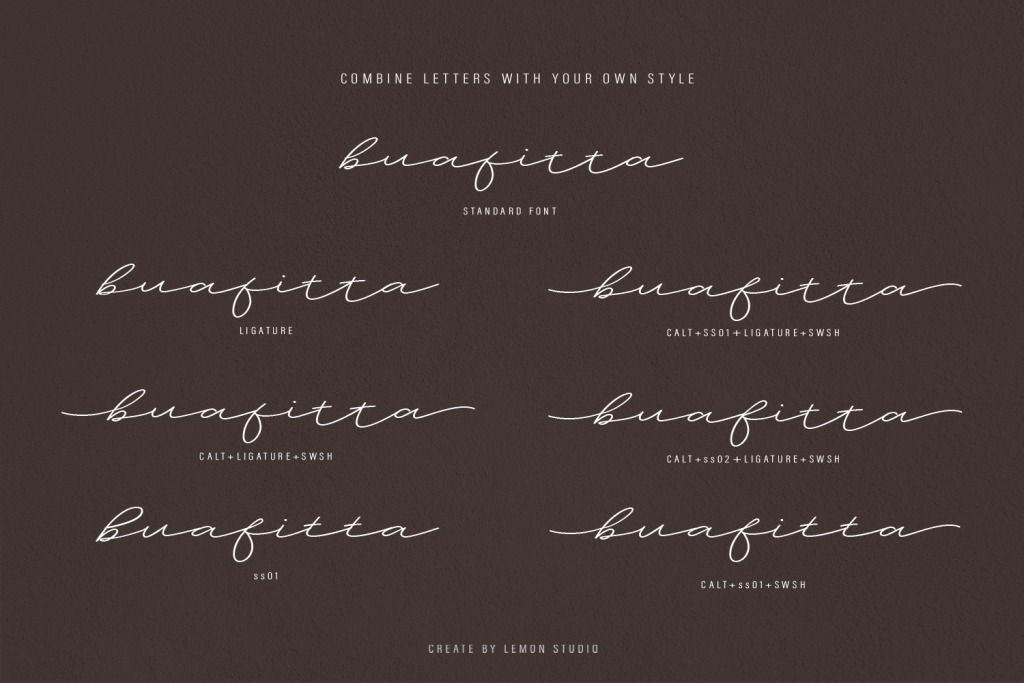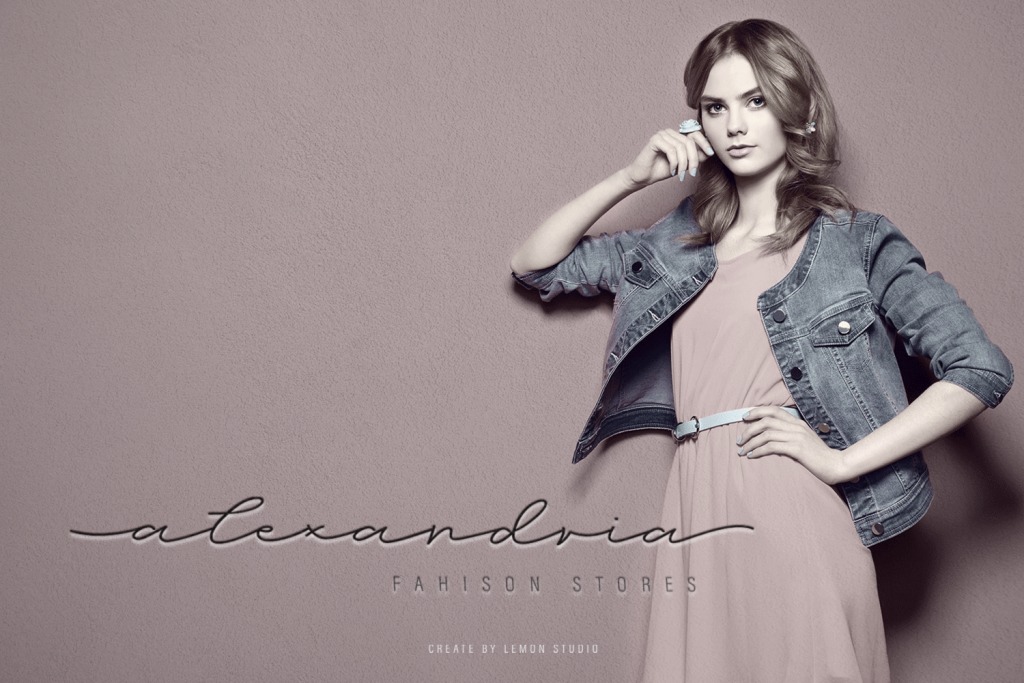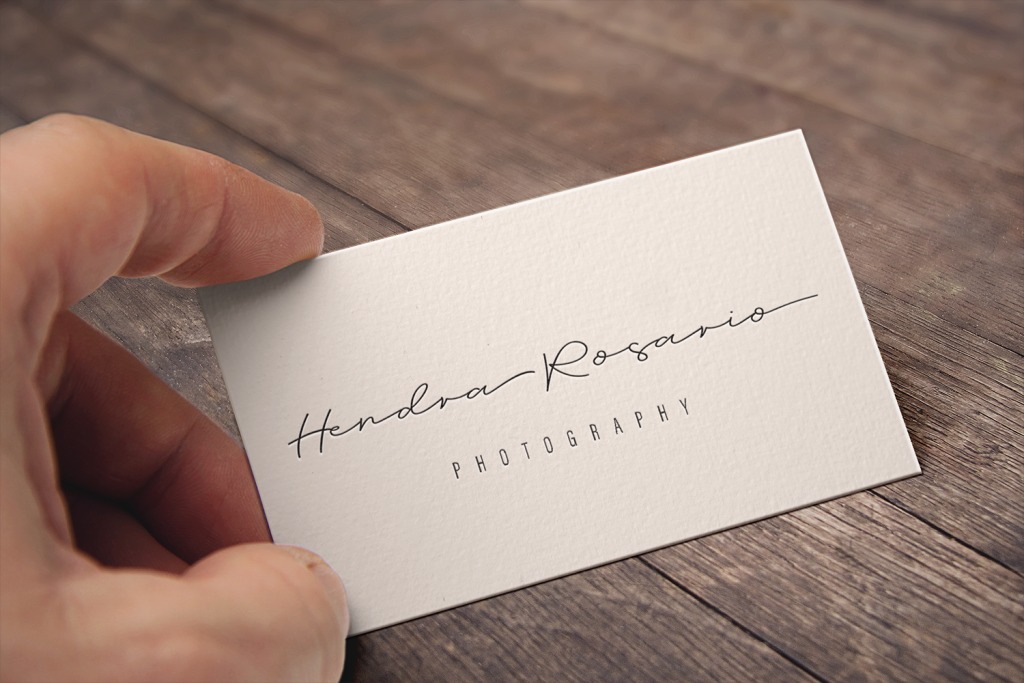
My Bellezza Handwritten Font
It’s a script font created by Lemon Studio with a smooth handwritten style. This font is perfect for branding projects, homeware designs, product packaging, use in name card, invitation cards, logo, websites, quotes, etc. Simply as a stylish text overlay to any background image, for your font pairing or anything requiring a sprinkle of elegance.